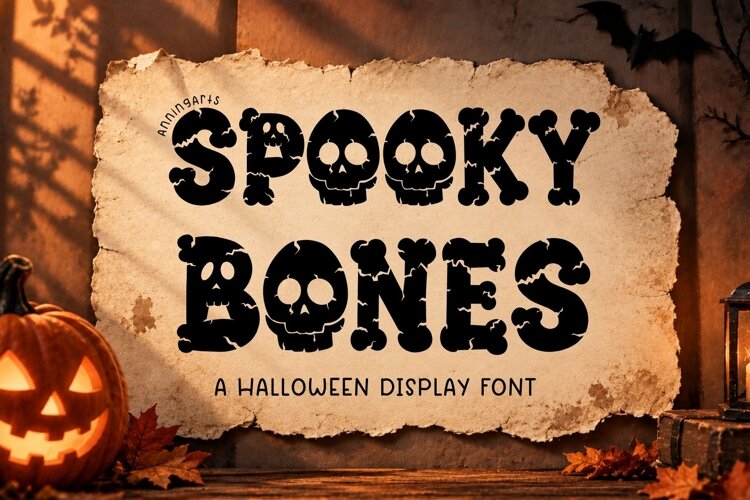
Spooky Bones is a bold Halloween display font featuring chunky bone-inspired letters, spooky skull details, cracked textures, and playful horror-style shapes. This decorative font has a strong seasonal look, making it perfect for eye-catching Halloween designs, spooky quotes, party graphics, and fun haunted-themed projects.
The font includes uppercase letters, lowercase letters, and numbers, giving you flexibility to create bold titles, names, short phrases, and decorative Halloween typography.